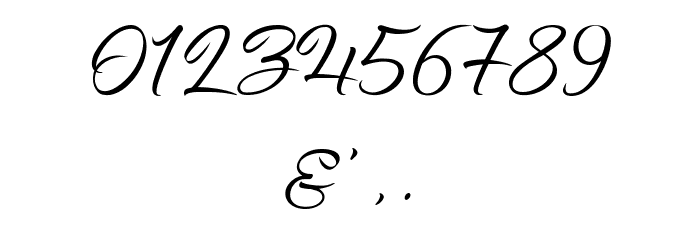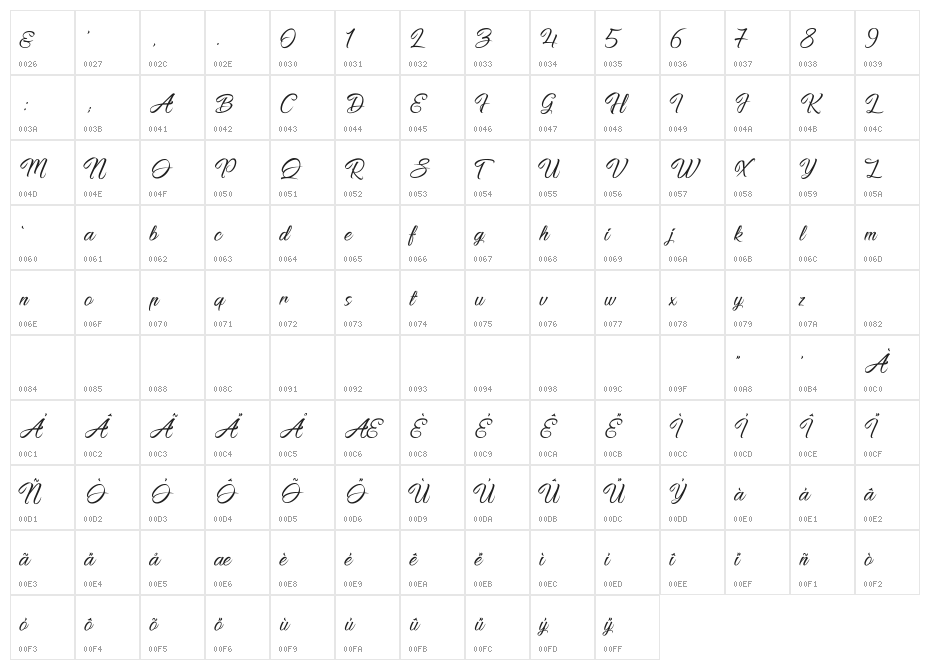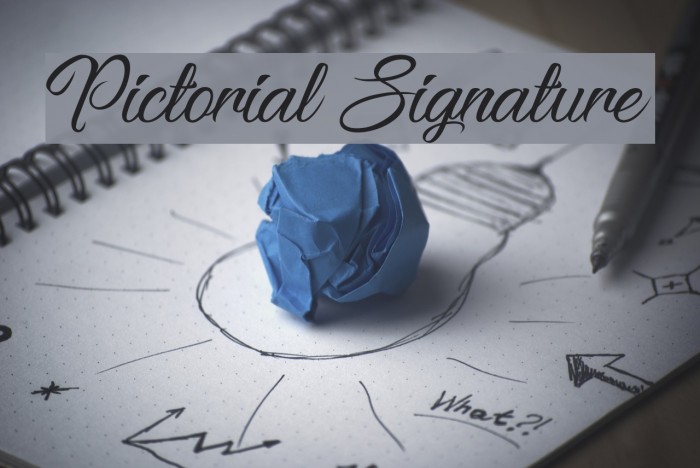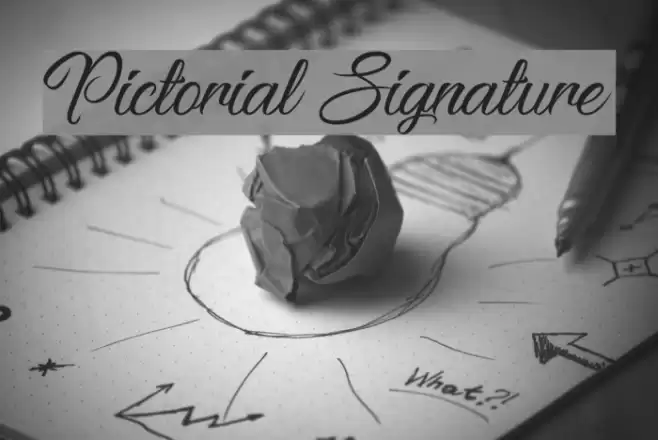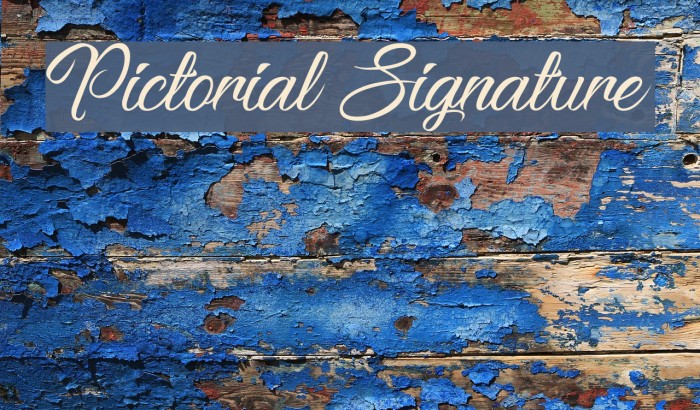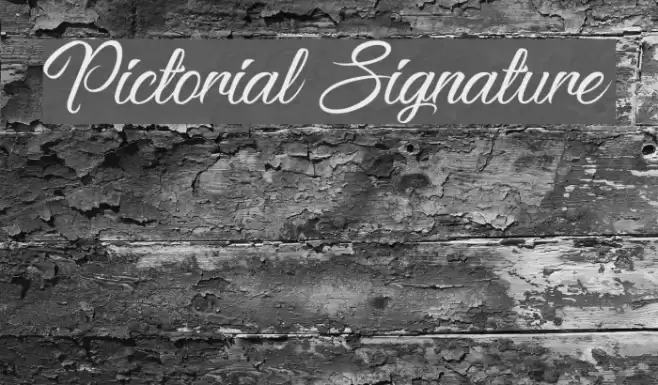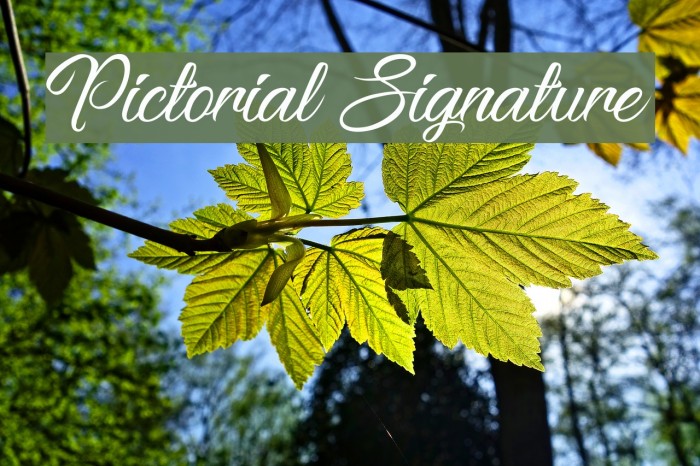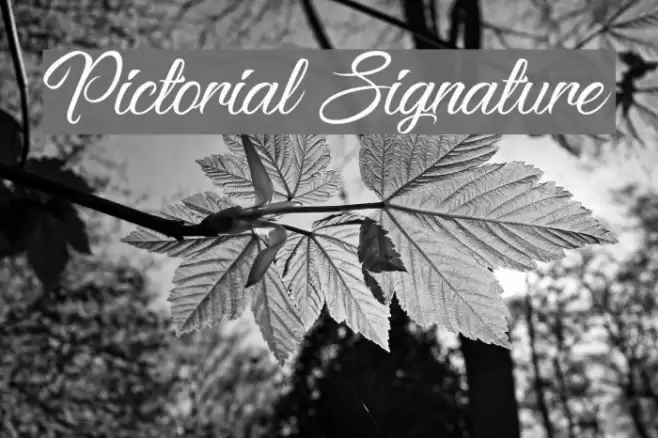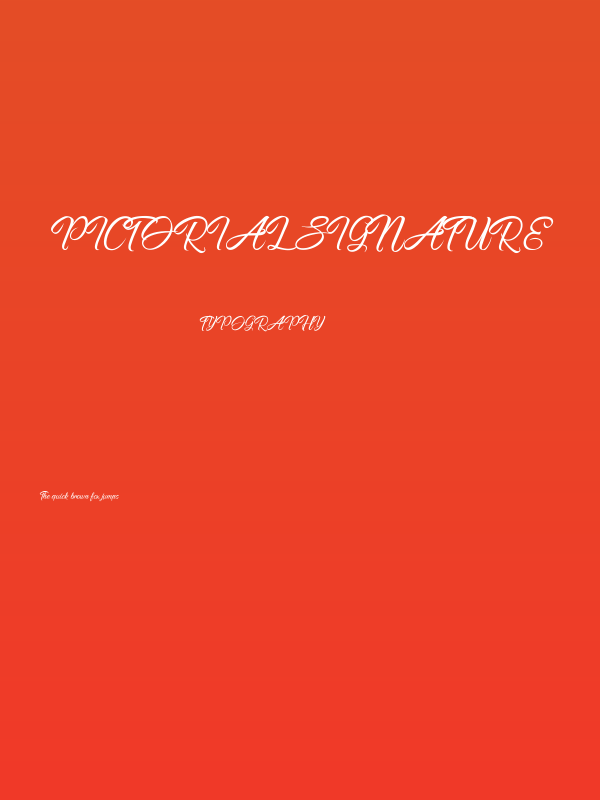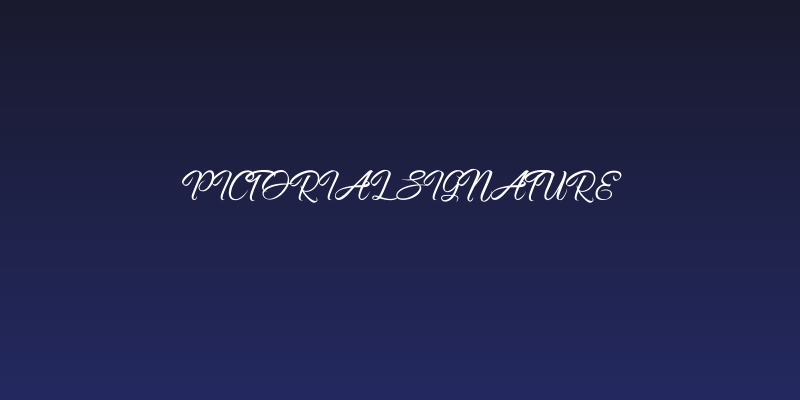
Pictorial Signature Font
Pictorial Signature Description
This elegant script font exudes a sense of sophistication and fluidity, characterized by its flowing, cursive style. The letters are interconnected with graceful loops and swirls, creating a seamless and harmonious appearance. The uppercase letters are particularly ornate, with elaborate flourishes that add a touch of grandeur. The lowercase letters maintain a consistent rhythm, enhancing readability while preserving the decorative nature of the font. The numerals and special characters are designed to complement the overall style, ensuring a cohesive look across all text elements. This font is ideal for projects that require a personal, handwritten touch, such as invitations, greeting cards, or branding materials.
| Use Case | Logos, Invitations, Greeting cards |
| Proposed Projects | Ideal for wedding invitations, greeting cards, personal branding, and elegant signage. |